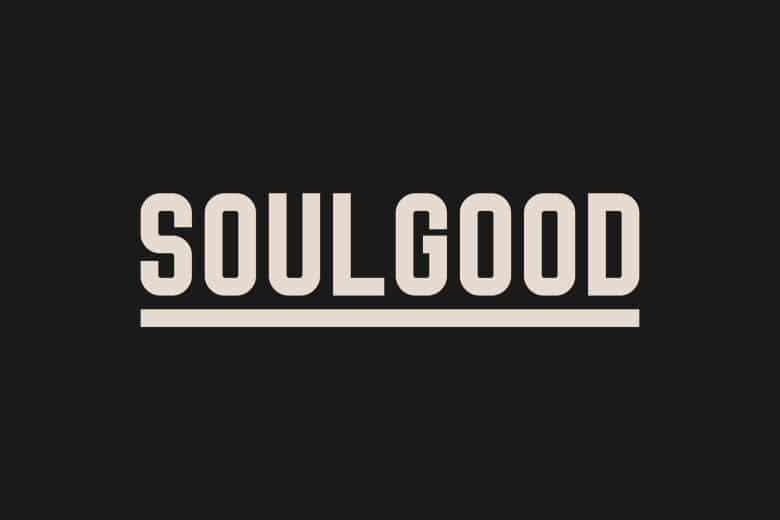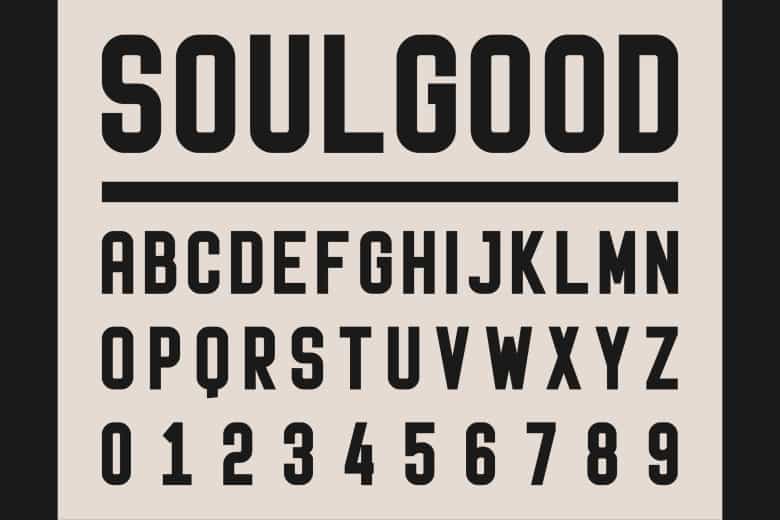
Soulgood Font is an eye-catching sans serif typeface with a modern, dynamic aesthetic. The curvatures of certain letters make Soulgood Font an irresistibly captivating font; perfect for headings, magazines and invitations as well as covers books logo branding identities and much more! It offers uppercase alphabet, numerals and symbols.